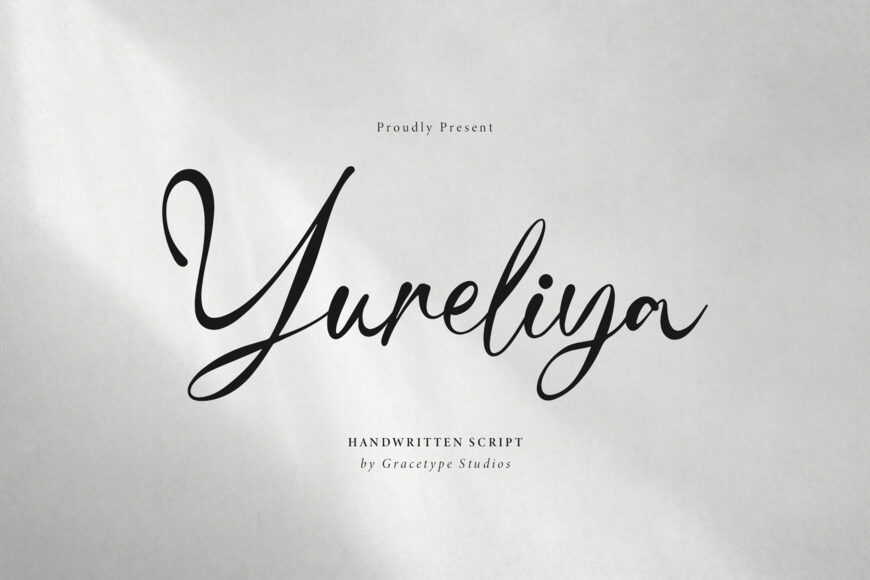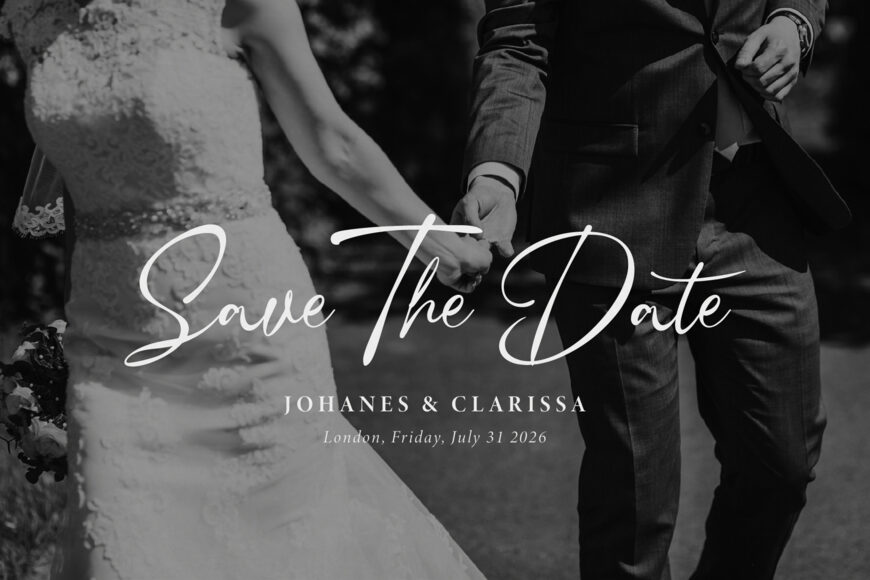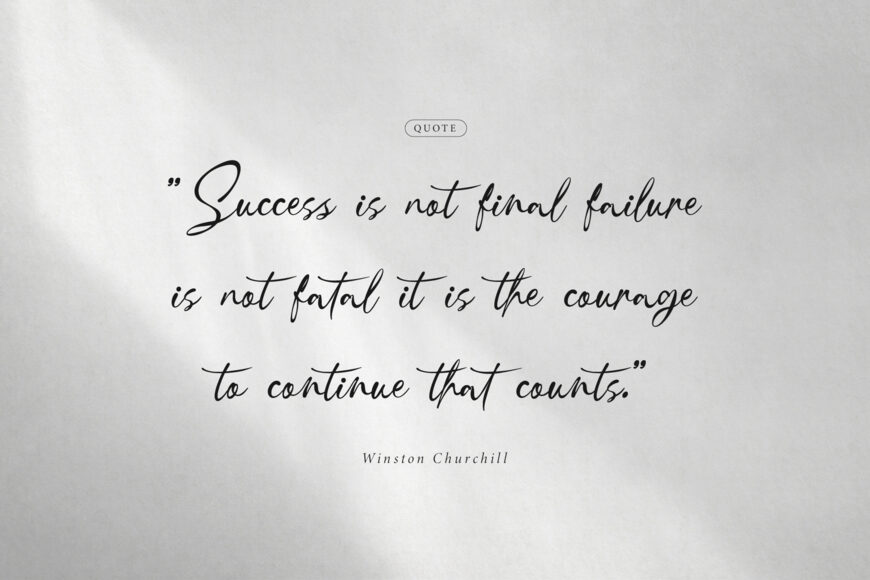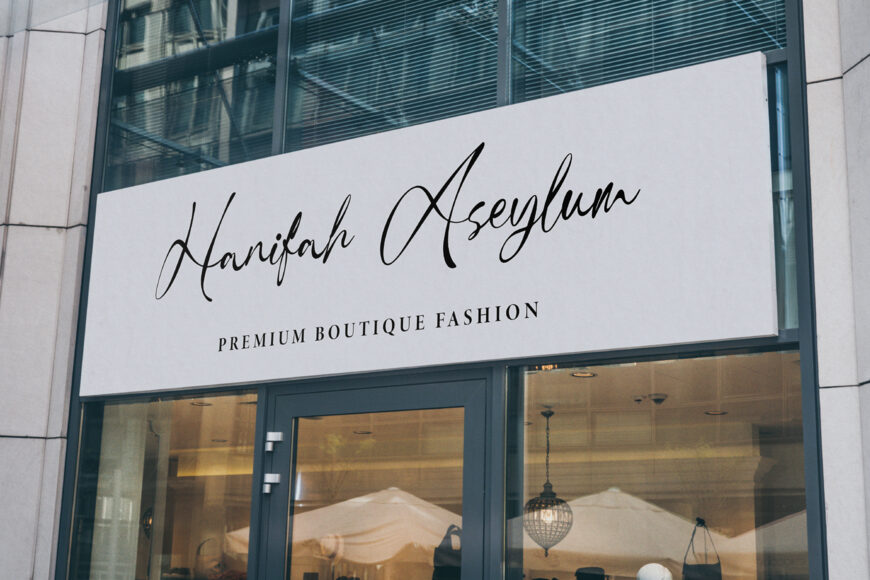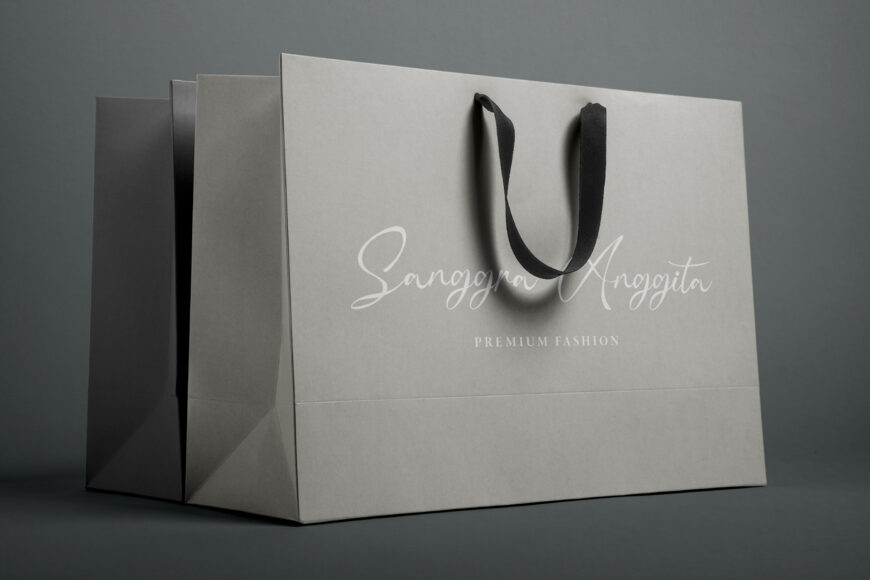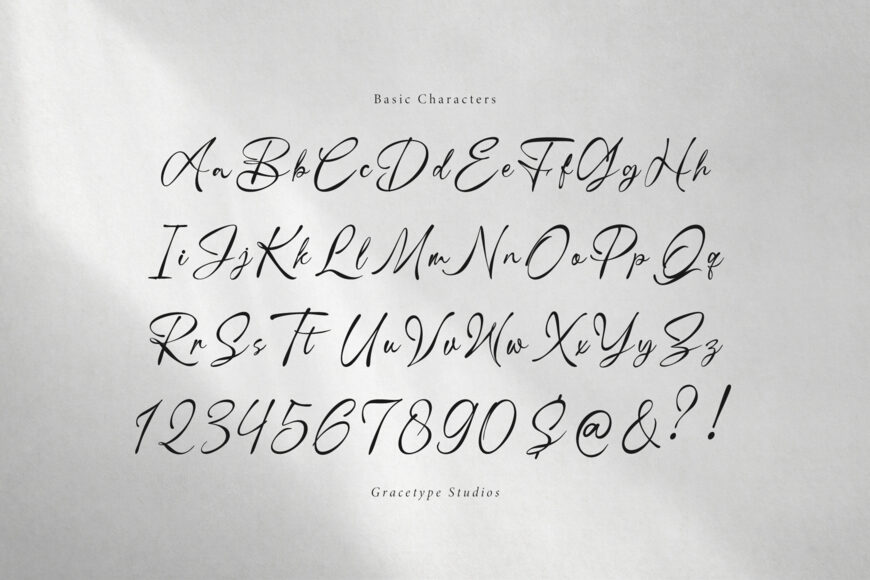
Infuse your designs with effortless grace and modern romance with Yureliya, an elegant handwritten script font! Crafted with fluid calligraphic strokes, sweeping loops, and an authentic hand-drawn rhythm, this script brings an atmosphere of delicate sophistication and personal warmth to every letter.
Whether you’re creating romantic wedding stationery, luxury branding logos, cosmetics packaging, aesthetic quote prints, or social media watermarks, Yureliya elevates your typography with timeless beauty.